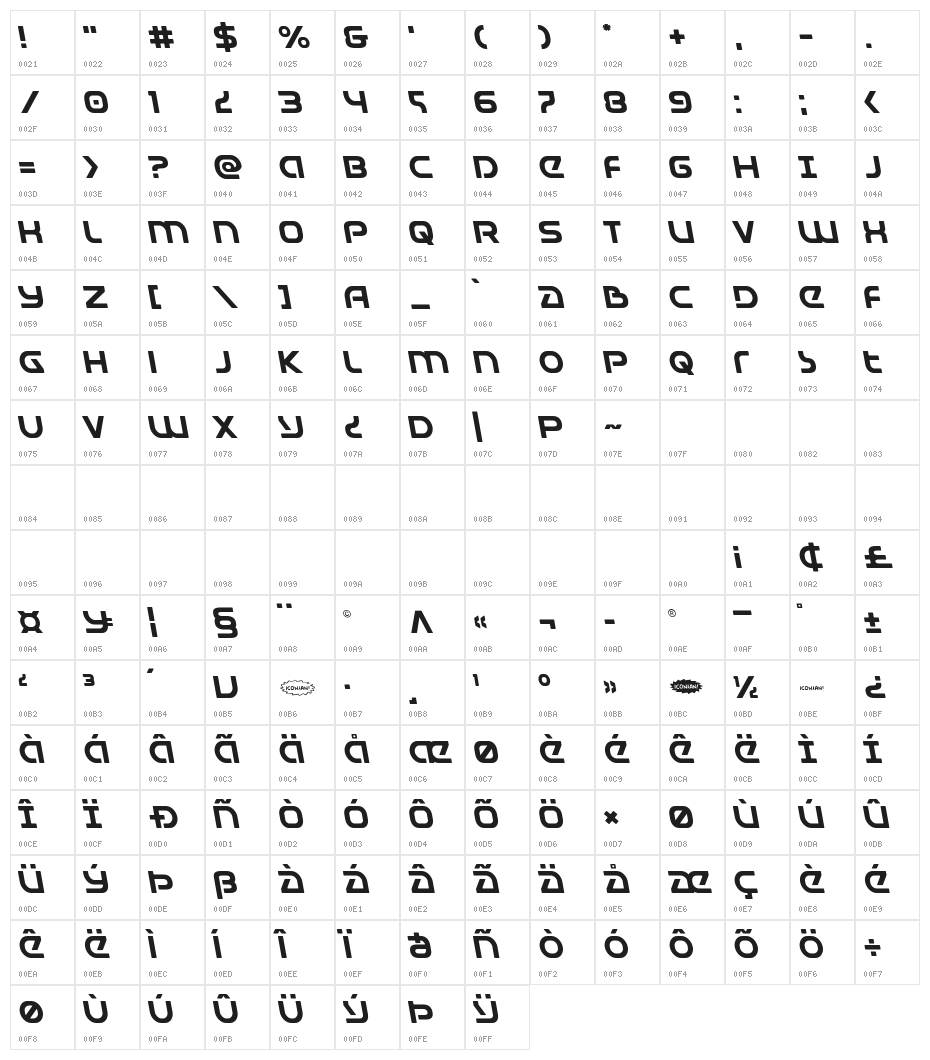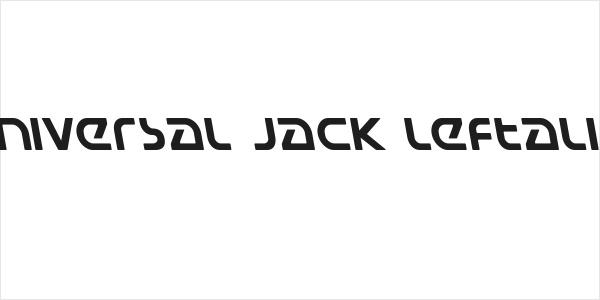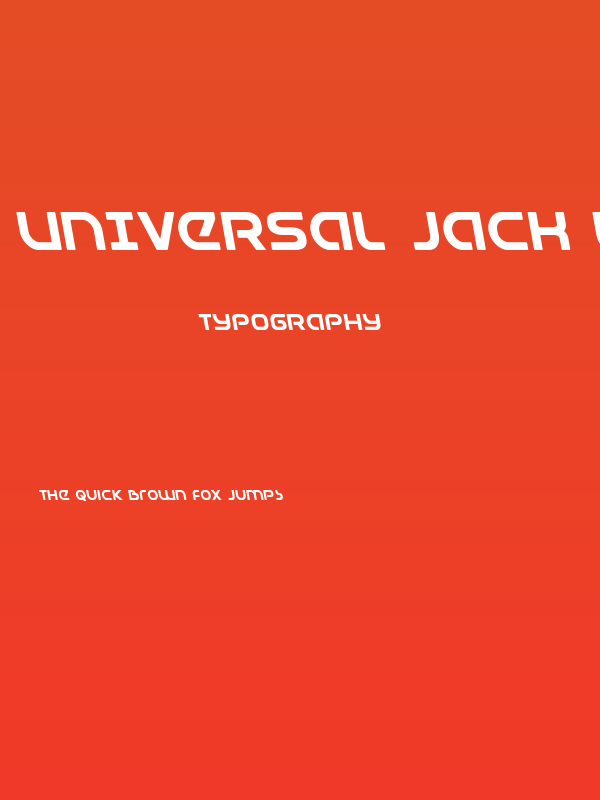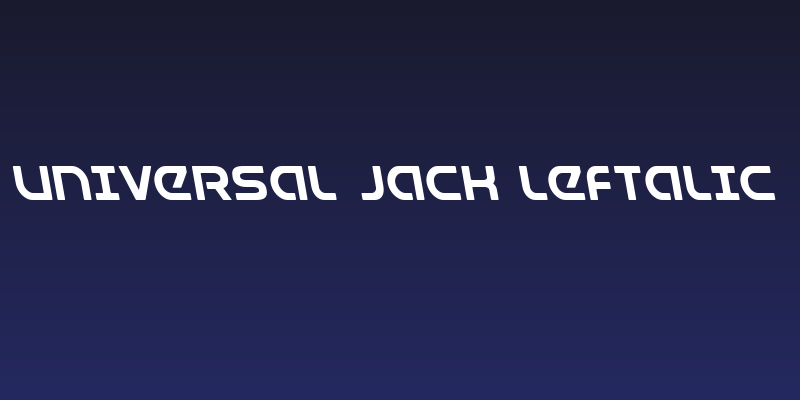
Universal Jack Leftalic Font
Universal Jack Leftalic Description
This font features a bold, futuristic design with a distinct geometric style. The characters are slightly condensed, with a unique angularity that gives them a modern and edgy appearance. The uppercase and lowercase letters maintain a consistent style, with rounded edges and a uniform stroke width. The numbers and special characters complement the alphabet with similar design elements, ensuring a cohesive look. The font's boldness and distinctive shapes make it ideal for projects that require a strong visual impact.
| Proposed Projects | Ideal for technology branding, sci-fi posters, video game titles, and modern advertising. |